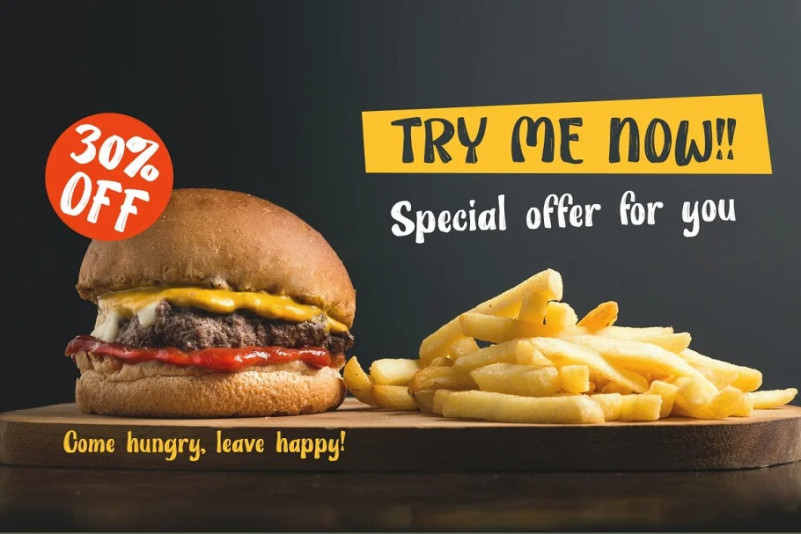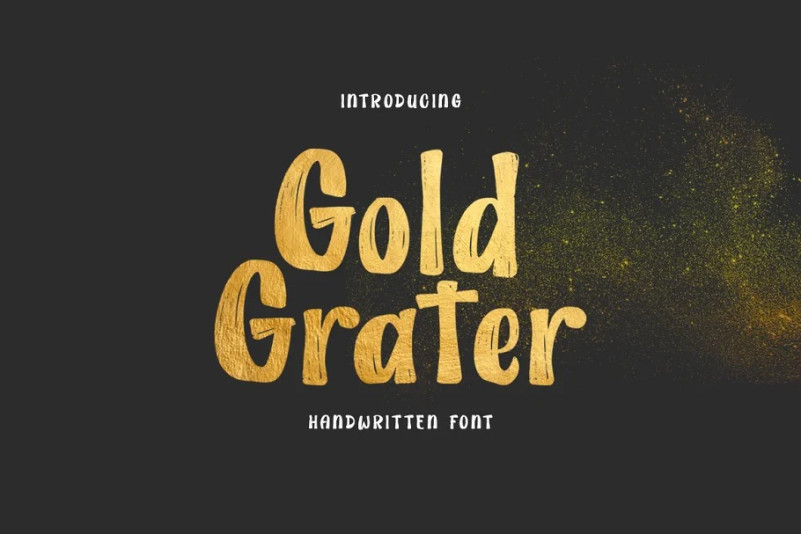
Gold Grater Font
Gold Grater Font is my hand drawn brush font, and makes with original brush paint, by using high resolution brush stroke images with incredible definition. Its look natural. It will be great for Logotypes, Posters, Digital Lettering Arts, Clean Design, Branding Design, Sign, Merchandise and Social Media Posts.